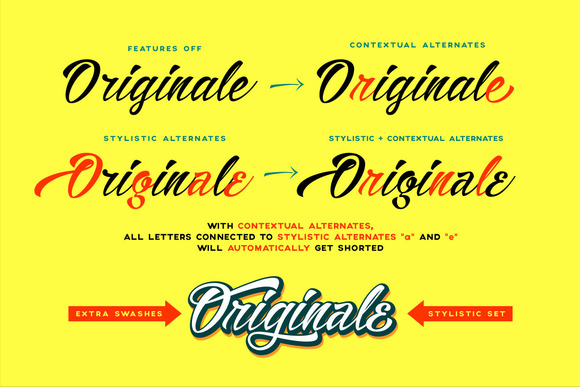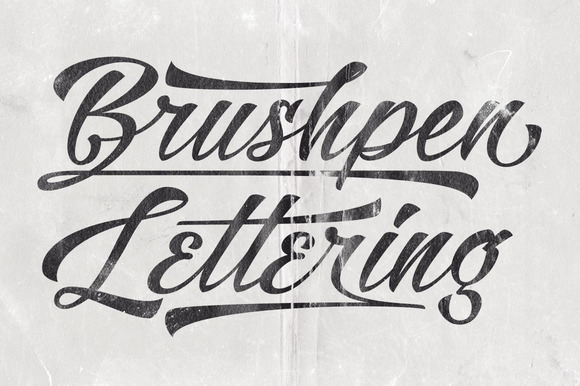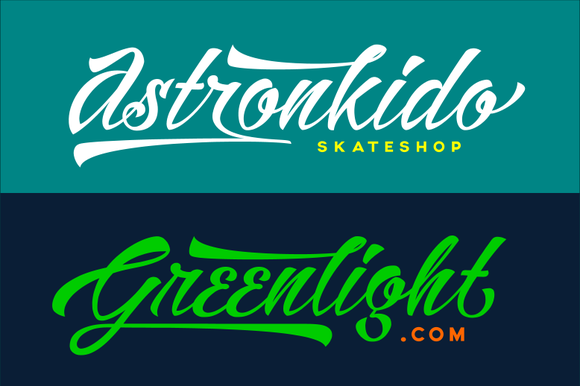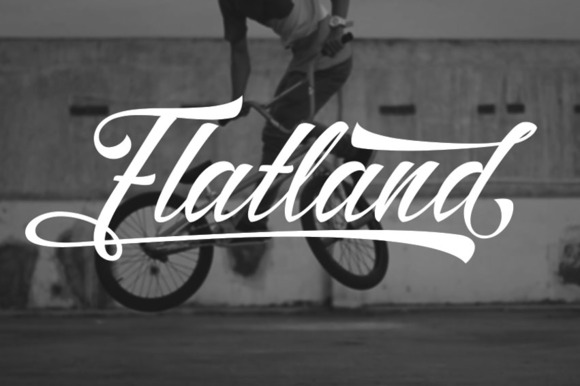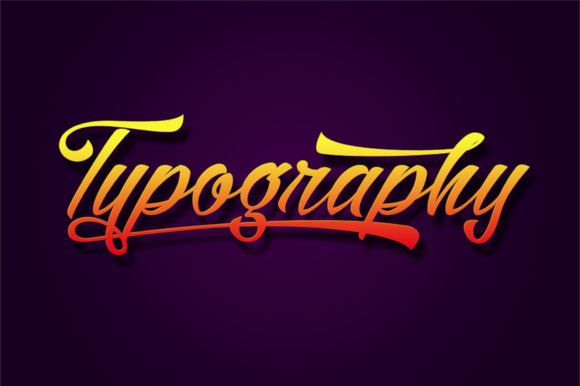
Alisandra Font
About Alisandra Font
Alisandra is a beautiful handwritten script font with elegant smooth letters. Alisandra is filled with alternate swashes and bonus characters.
The Alisandra font has the following features:
Stylistic Alternates
Contextual Alternates
Ligatures
Stylistic Set 01
Kerning